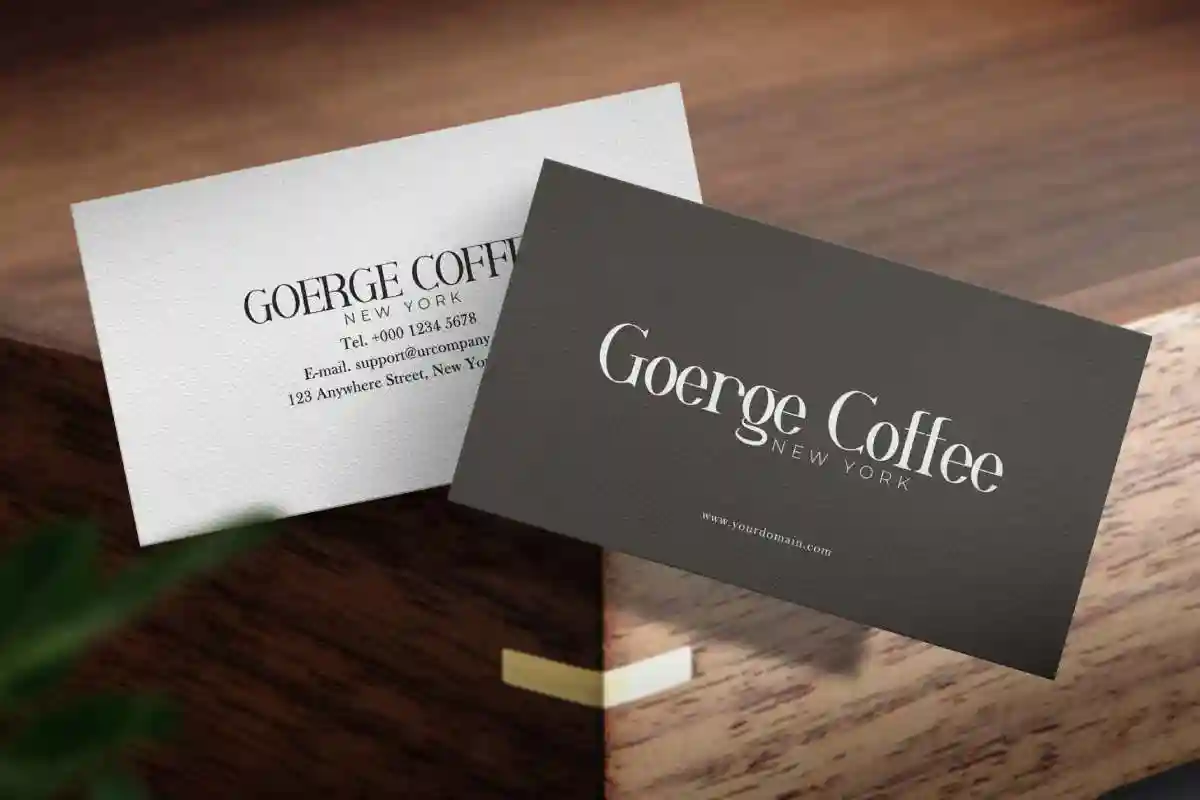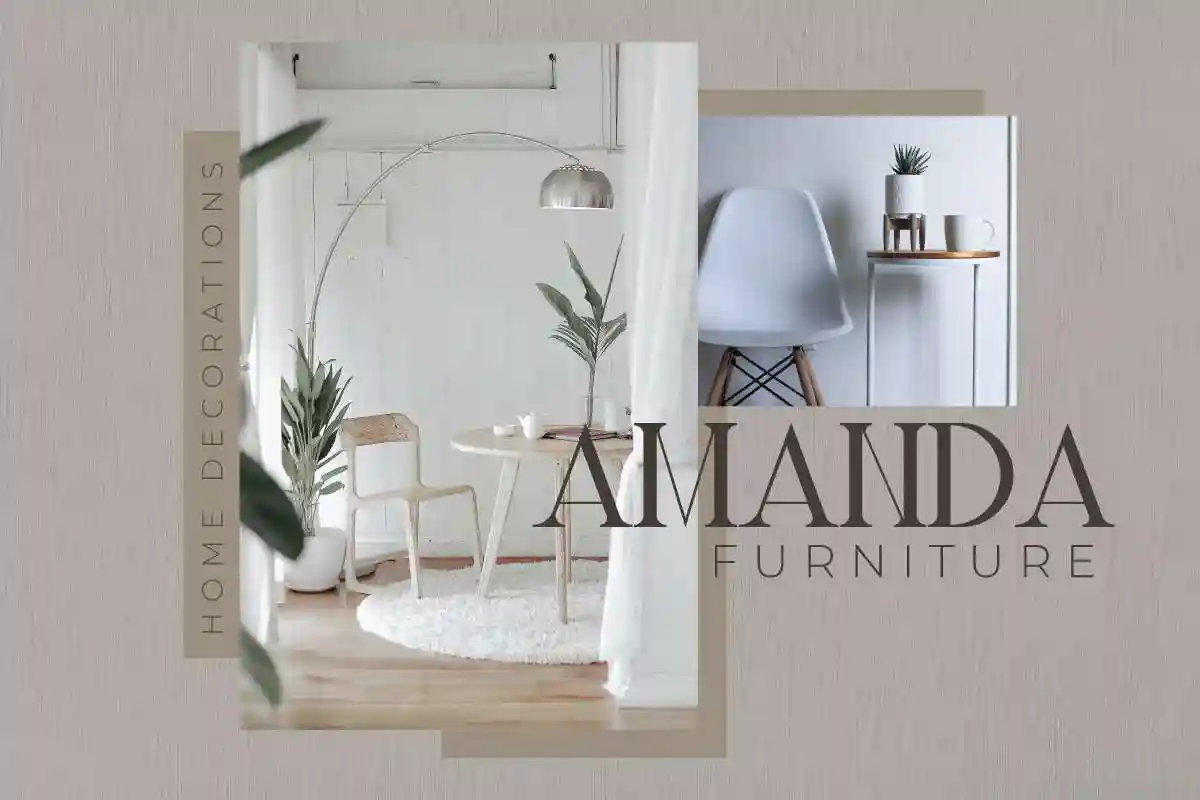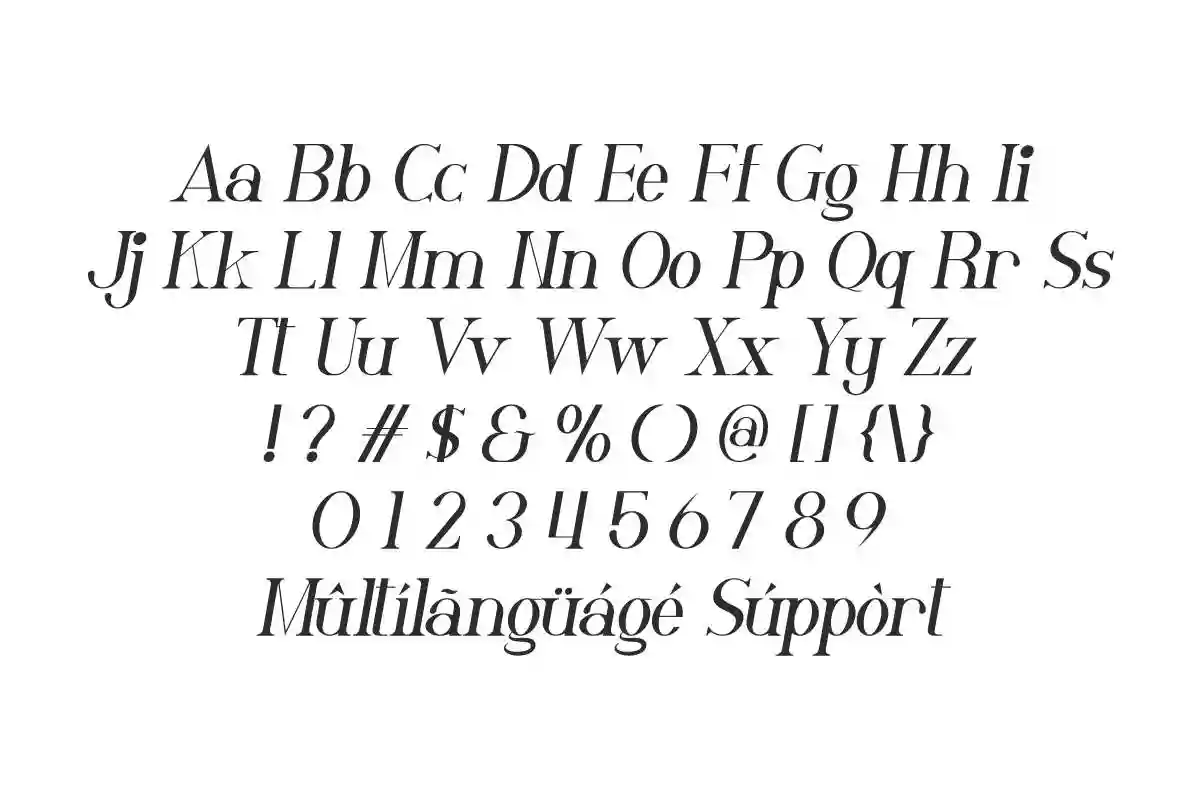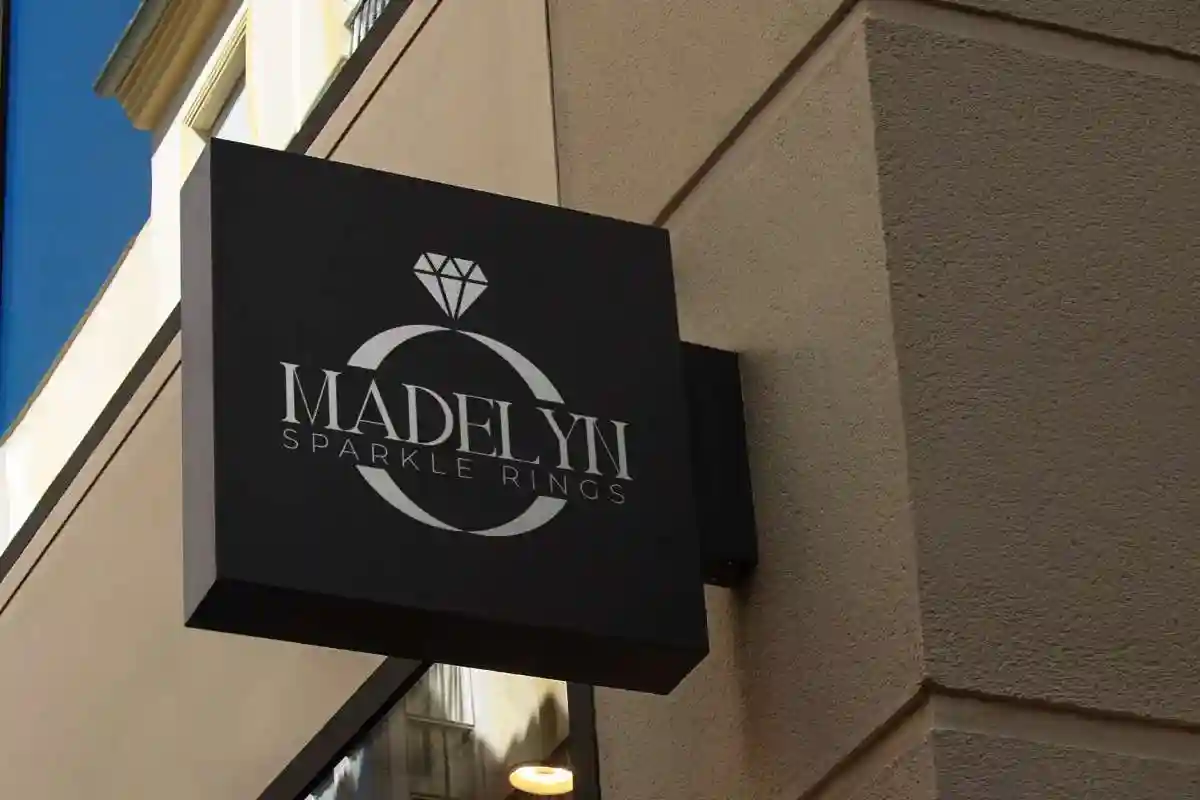
Clavier Font is a serif font with a elegant style by NihStudio. This font will be great for branding, florist, poster, products packaging, webpage etc.
Clavier Font comes with a classy style appearance on the letters. This font has two styles: Regular and Italic. After purchase, On the zip package you will get :
Clavier Font will be great for any projects including : business card, cosmetic, invitation, logo branding, products packaging, signage, stationery, etc. This font comes with a full set of characters, uppercase and lowercase letters, numbers and punctuations.